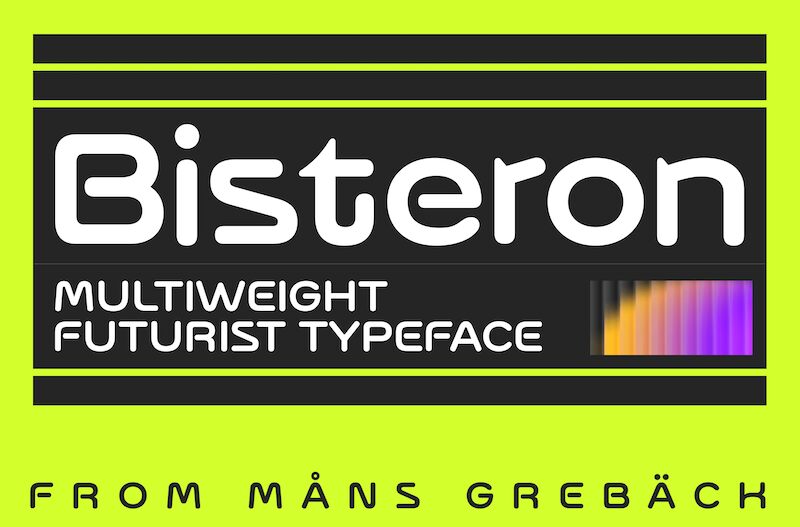
Bisteron font by Måns Grebäck is a free techno typeface that resembles mechanical lettering. This stylized digital font combines smooth and very thin curves with darker main sections which form perfectly readable letters. All uppercase and lowercase letters are included. These are several variations of each other in terms of thickness and main sections.
Bisteron is a clean, futuristic typeface featuring a rounded and technical aesthetic that exudes a calm confidence in its design.
Crafted with soft corners and controlled geometry, it strikes a harmonious balance between friendliness and precision, making it an excellent choice for various creative projects.